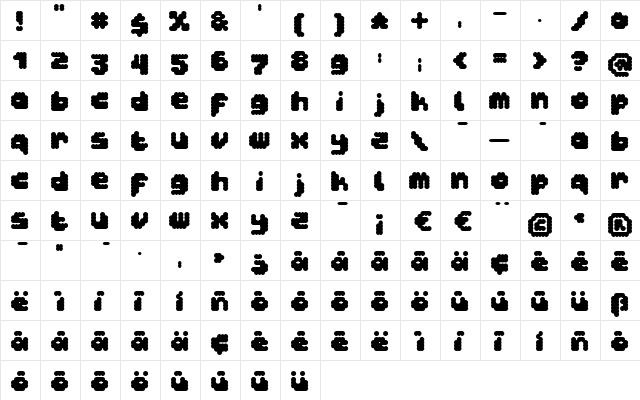
dotto mokka
Design Context for dotto Typeface
dotto is rooted in pixel-grid construction, making it a natural fit for game UI, retro computing aesthetics, and digital nostalgia projects.
Well-suited to indie game interfaces, retro computing aesthetics, and pixel art-adjacent design work.
Pro Tip: Use dotto at sizes that align with its pixel grid for the sharpest rendering — scaling to non-integer multiples can introduce unwanted blur.